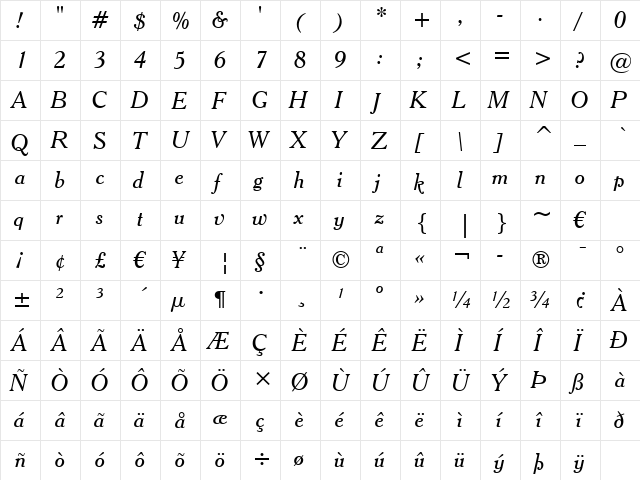
Cheltenhm BT Italic
Design Context for Cheltenhm BT Typeface
Cheltenhm BT takes a measured approach to typography — its balanced proportions and neutral character make it a reliable workhorse for both digital and print work. The dynamic lean of this cut emphasises speed and emphasis in any layout.
Pro Tip: Use Cheltenhm BT for emphasis, pull quotes, and subheadings where its slanted energy can add rhythm to the layout.